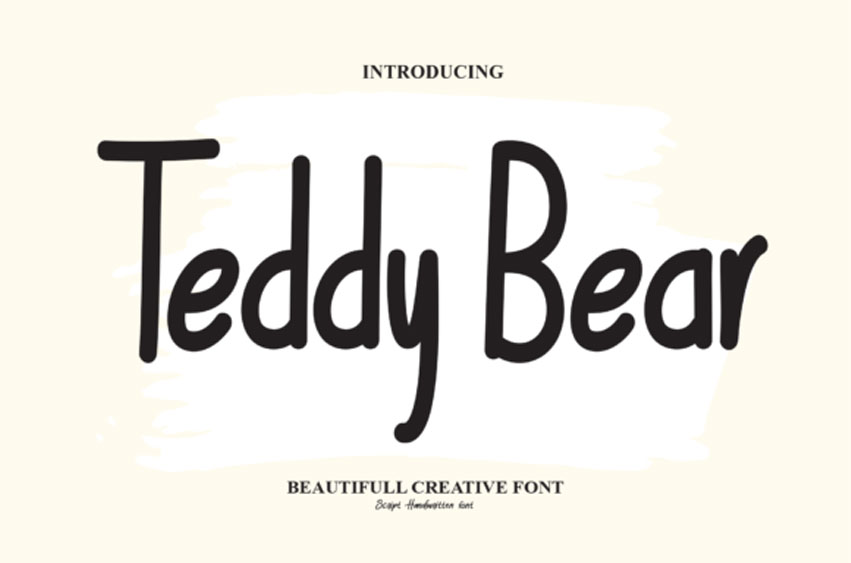
Teddy Bear Creative Font
Teddy Bear Creative Font is a simple, unique, and adaptable handwritten font.
You can successfully add this elegant font to your wedding invitations, business cards, greeting cards, social media posts, wall art, and much more.